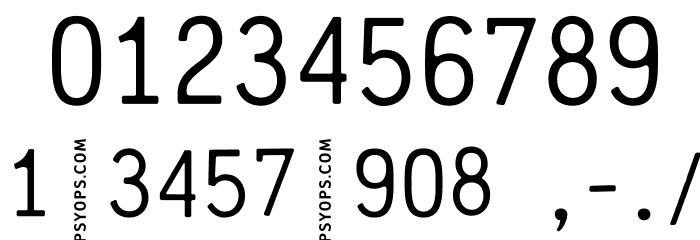
CrashNumbering-Gothic Font
CrashNumbering-Gothic Description
This font features a clean and modern design with a focus on clarity and readability. The characters are uniformly structured with a geometric influence, offering a contemporary aesthetic. The numerals are bold and prominent, making them ideal for numbering and labeling purposes. The font maintains a consistent stroke width throughout, providing a balanced and cohesive look. Its simplicity and straightforwardness make it versatile for various applications, from digital interfaces to print media.
A clean, modern font with geometric influences, ideal for clear numbering and labeling from Uncategorized fonts.
- Proposed Projects: Suitable for technical documents, user interfaces, signage, and any project requiring clear and precise numbering.
- Use Case: Headlines, Technical documents, Signage